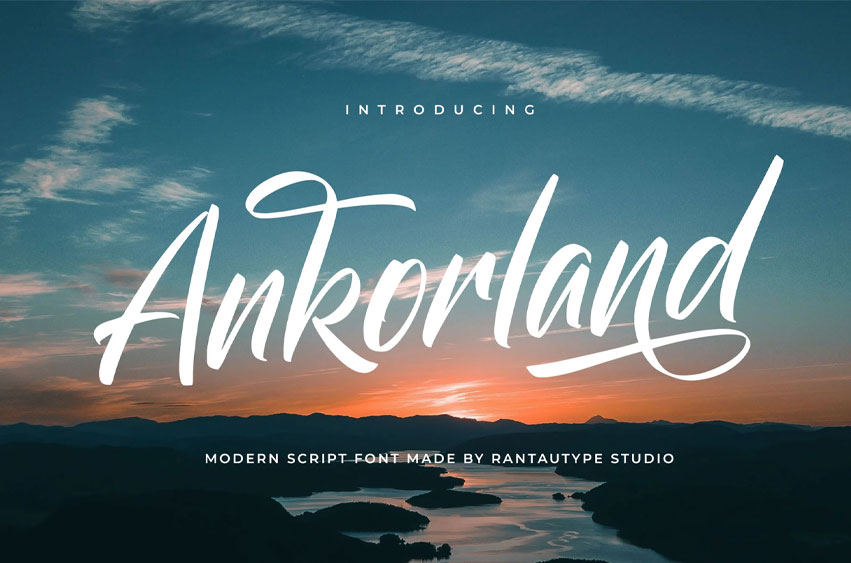
Ankorland Font is a modern script font with a casual look.
It is a perfect choice for a variety of creative endeavors, including modern lifestyle designs such as logotypes, titles, covers, branding, invitations, wedding designs, displays, magazines, social media posts, advertisements, printed quotes, product packaging, corporate branding, product designs, labels, photography, watermarks, special events, and any other projects that require a contemporary touch.h.